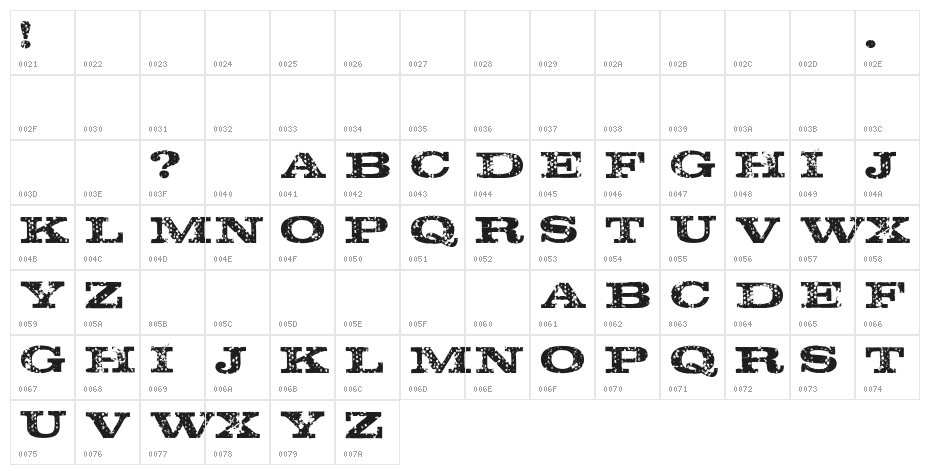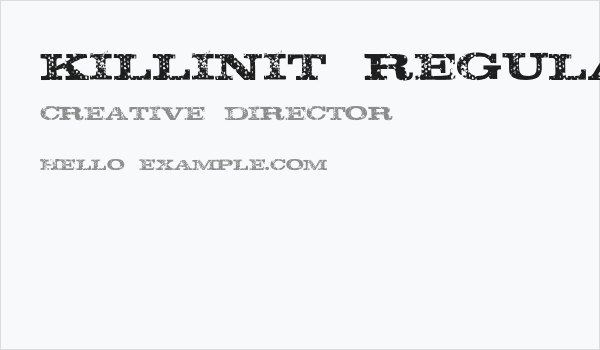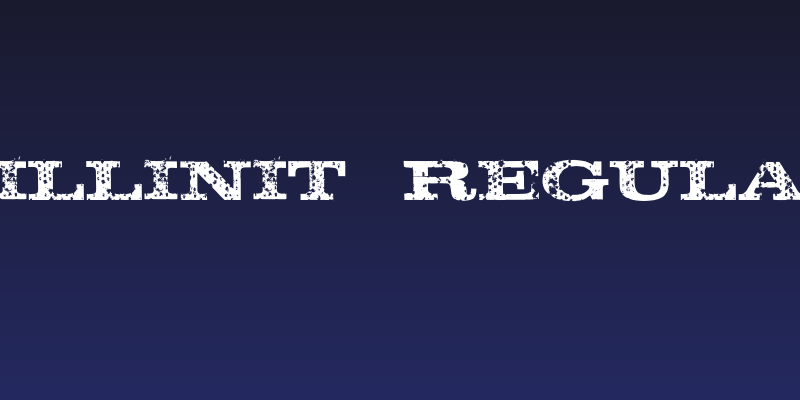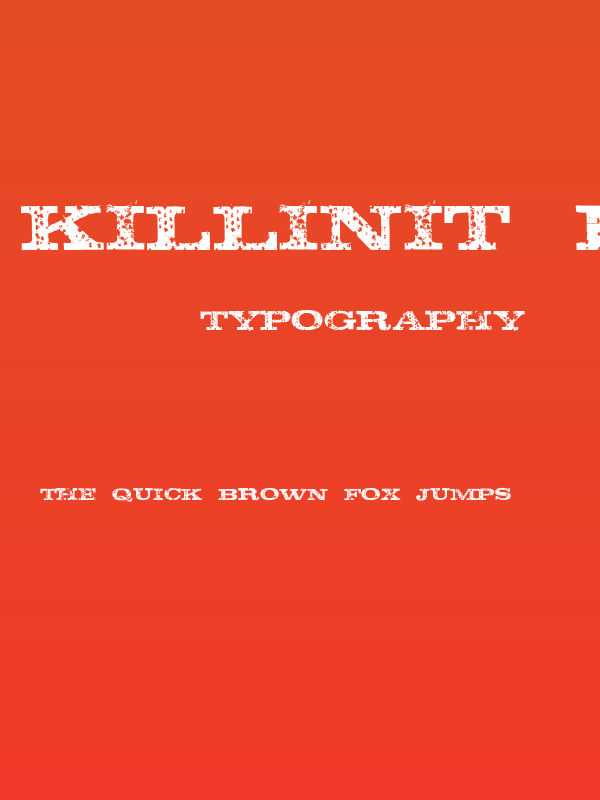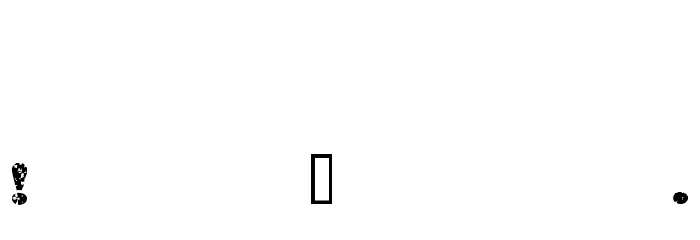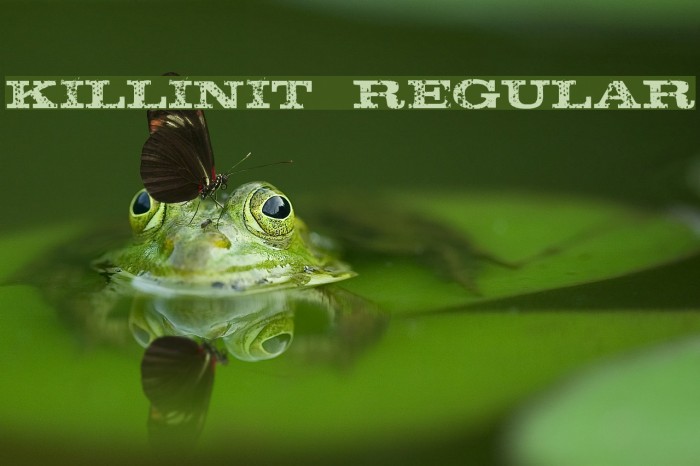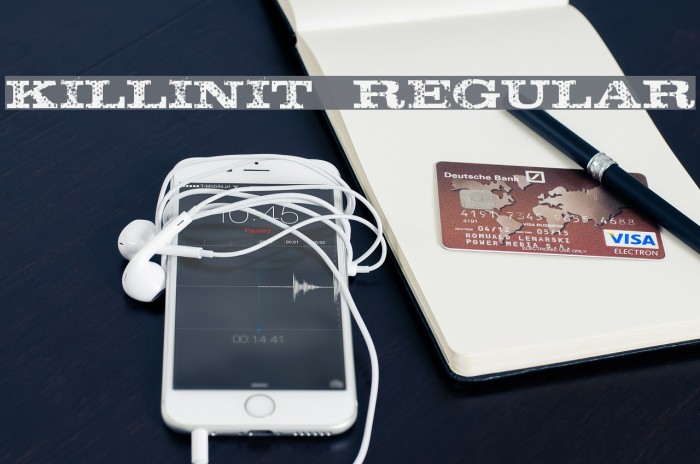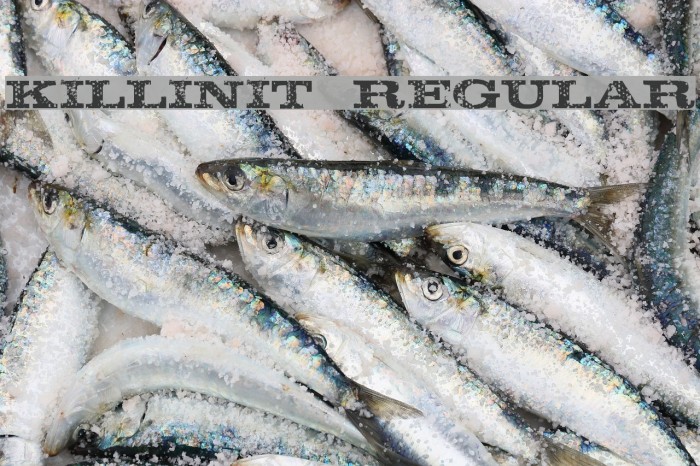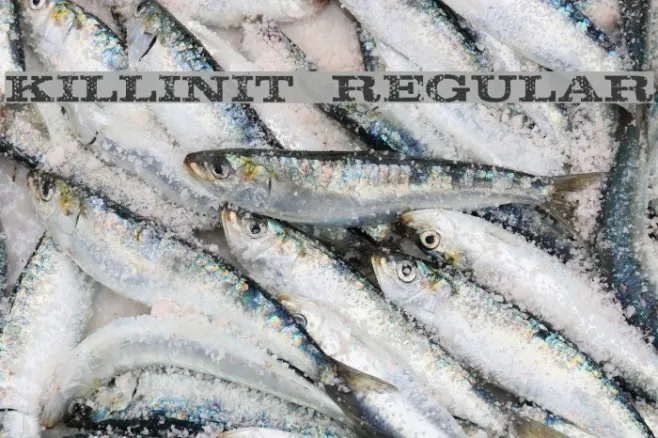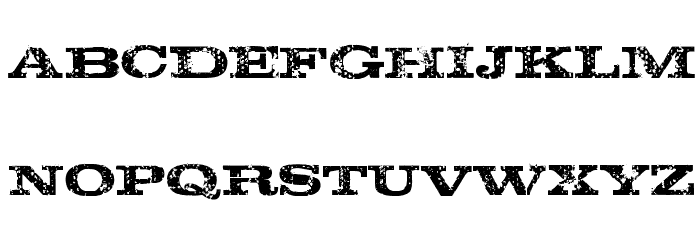
KillinIt-Regular Font
KillinIt-Regular Description
This font features a bold and distressed style, giving it a rugged and textured appearance. The characters are uppercase with a rough, eroded texture that suggests a vintage or grunge aesthetic. The boldness of the letters ensures high visibility, making it suitable for impactful designs. The font's unique texture adds character and depth, making it ideal for projects that require a strong visual presence. The spacing between characters is relatively tight, which complements its bold style. This font is perfect for creating eye-catching headlines, posters, and branding materials that need a touch of edginess.
| Proposed Projects | Ideal for posters, album covers, branding, and any design needing a bold, edgy look. |